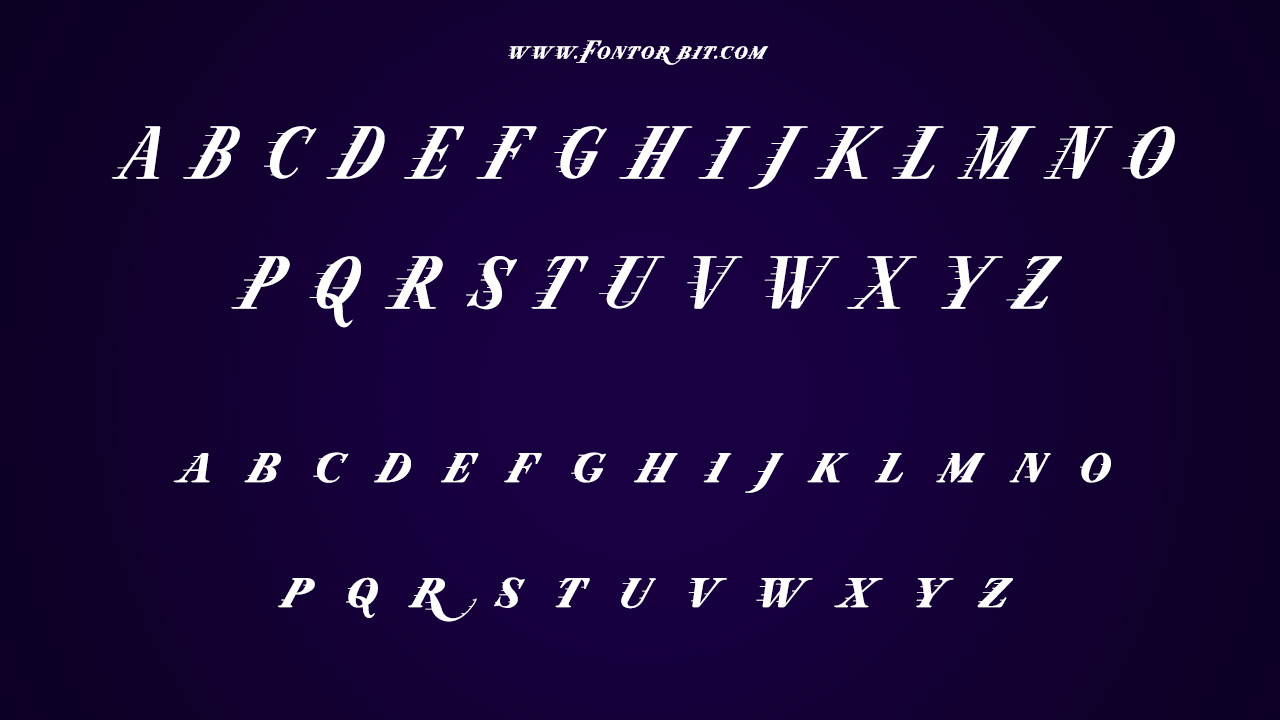
The Lakers font, popularly associated with the Los Angeles Lakers basketball team, was designed to reflect the bold, dynamic spirit of sports. The font style used in the Lakers logo is known as “Bodoni Italic,” a modern serif font with strong contrasts between thick and thin lines, conveying elegance and power.
Lakers Font Family Includes
The Lakers font family includes multiple variations inspired by the original Bodoni Italic and other similar fonts created to replicate the iconic sports design. The free font family options have been carefully designed to capture the energy and boldness of the Lakers’ typography.
- Bodoni Italic
- Lakers Display Font
- Lakers Bold Font
- Lakers Stencil Font
- Lakers Brush Font
Notable Uses Of Lakers Font
The Lakers font is widely used in sports-themed projects and branding for teams or events related to basketball. Most notably:
- The official Los Angeles Lakers logo
- Sports apparel and merchandise
- NBA team banners and posters
- Fan artwork and memorabilia
The Lakers font is a great choice for sports branding, poster design, and event promotions. Its bold, impactful style is ideal for conveying energy and enthusiasm in any basketball or athletic context. You can use this font in:
- Sports-themed logos and merchandise
- Event posters and banners
- Social media graphics for sports organizations
- Video game design and esports branding
The Lakers font captures the energy and excitement of basketball and the iconic NBA team. Whether you’re designing a sports logo, creating fan art, or promoting a basketball event, the Lakers font and its alternatives provide a bold, athletic look perfect for dynamic and impactful designs.
1.What Is The Best Use For The Lakers Font?
It’s ideal for sports-related designs, logos, posters, and branding.
3.What Font Family Does The Lakers Font Belong To?
It belongs to the Bodoni family, specifically Bodoni Italic.
4.Can I Use The Lakers Font In A Video Game?
Yes, the bold and energetic style of this font is perfect for sports or action games.
5.Is The Lakers Font Suitable For Web Design?
Yes, it can be used for sports-themed websites, particularly for headers and logos.
6.Are There Different Versions Of The Lakers Font?
Yes, fan-made variations such as Lakers Display, Bold, and Stencil fonts exist.